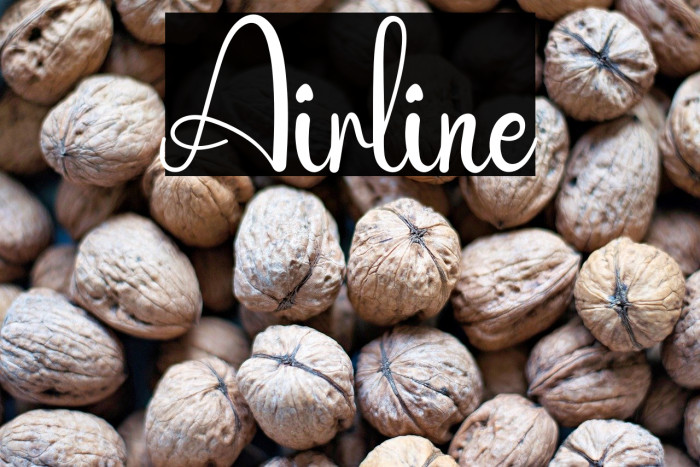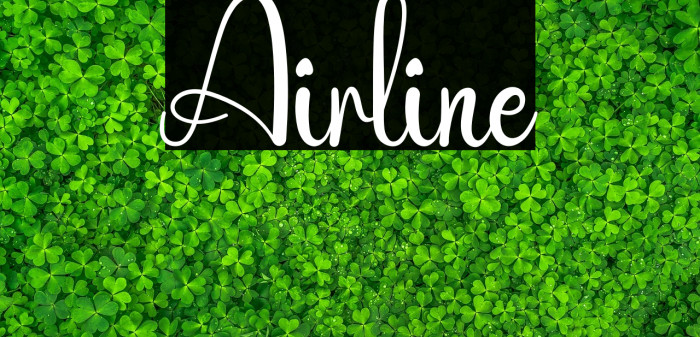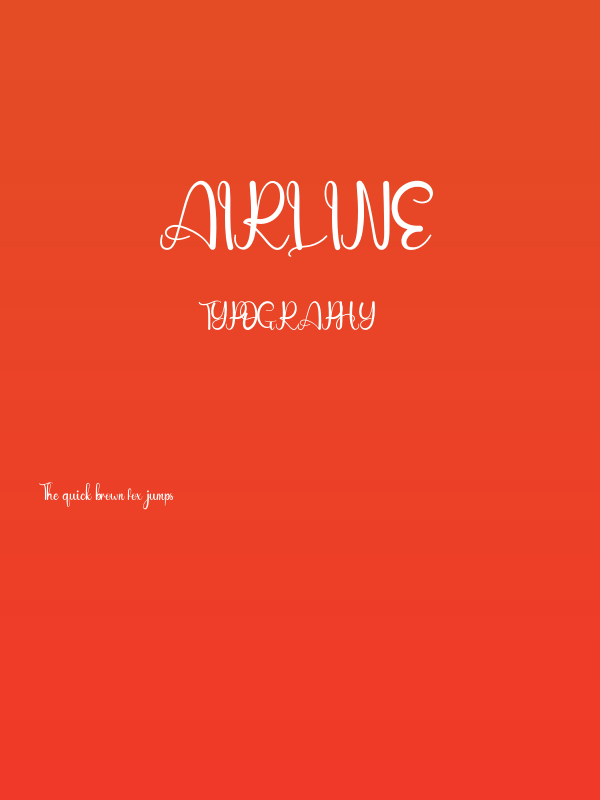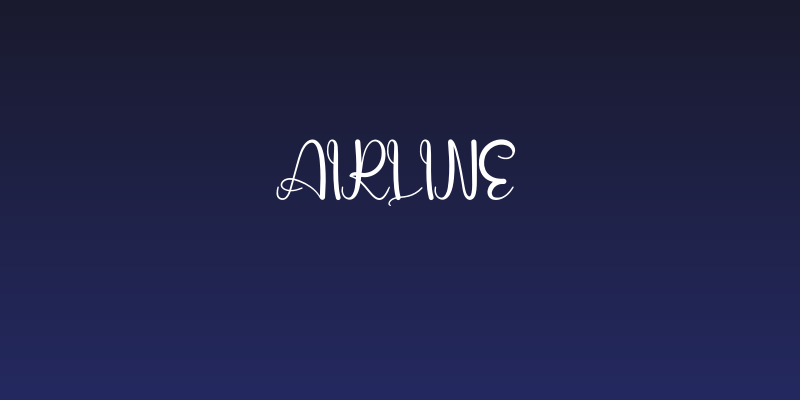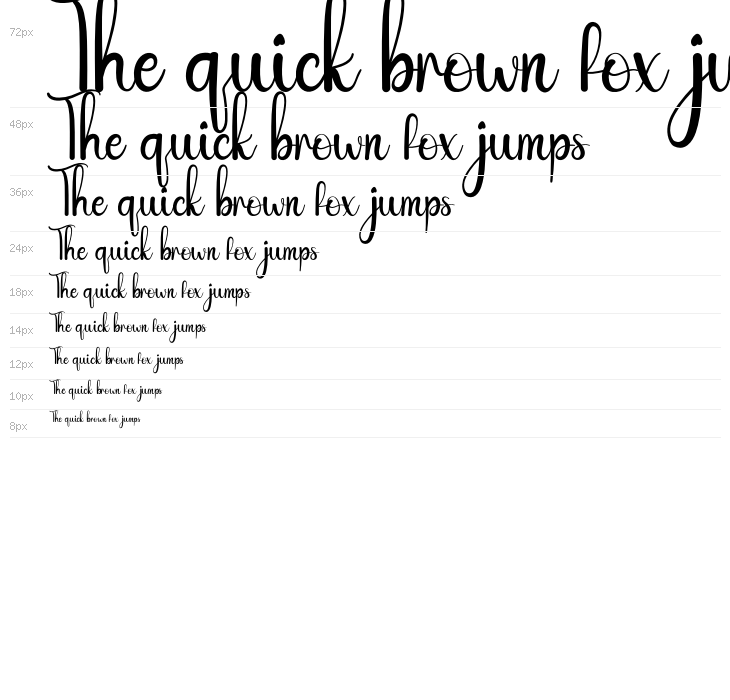
Airline Font
Airline Description
A playful, handwritten script font with tall, narrow letterforms, pronounced loops, and a casual, whimsical feel. The strokes are consistent in thickness, and the characters have a lively, flowing motion.
| Overall Style | Decorative, Playful, Modern |
| Use Case | Logos, Headlines, Invitations, Posters |
| Proposed Projects | Greeting cards, invitations, branding for creative businesses, social media graphics, posters. |